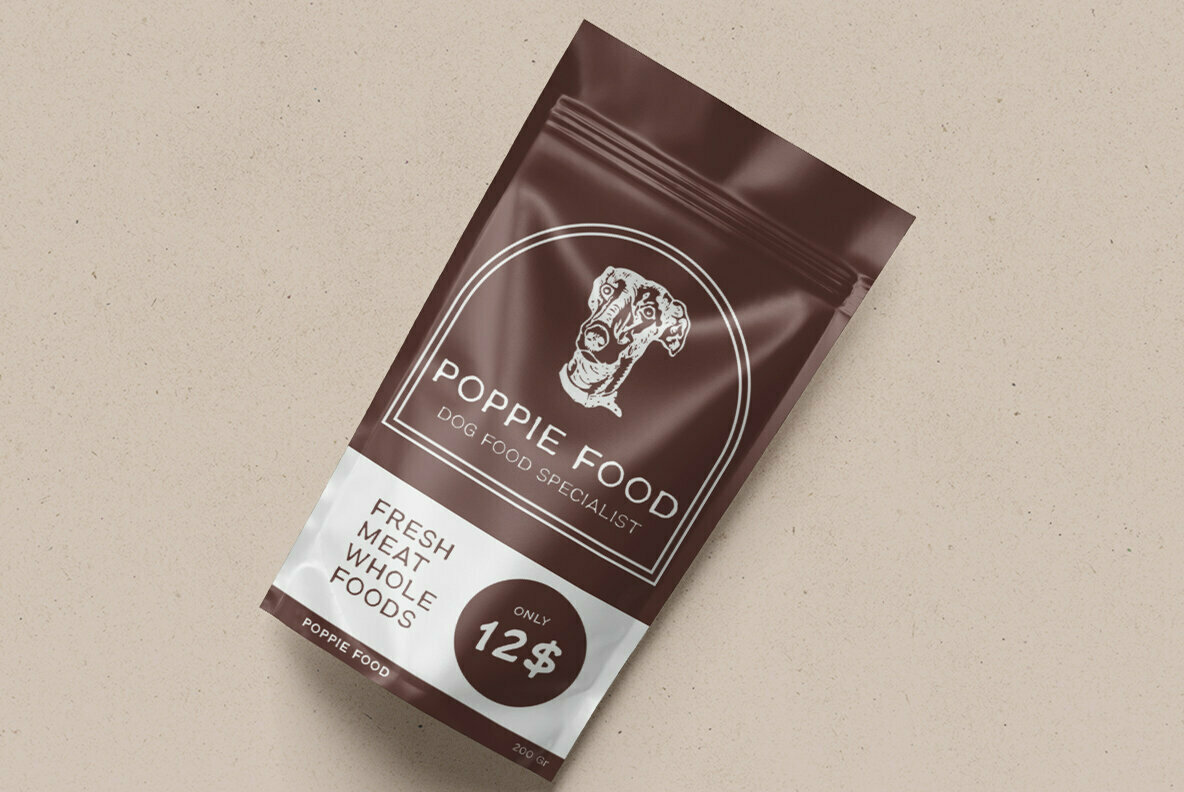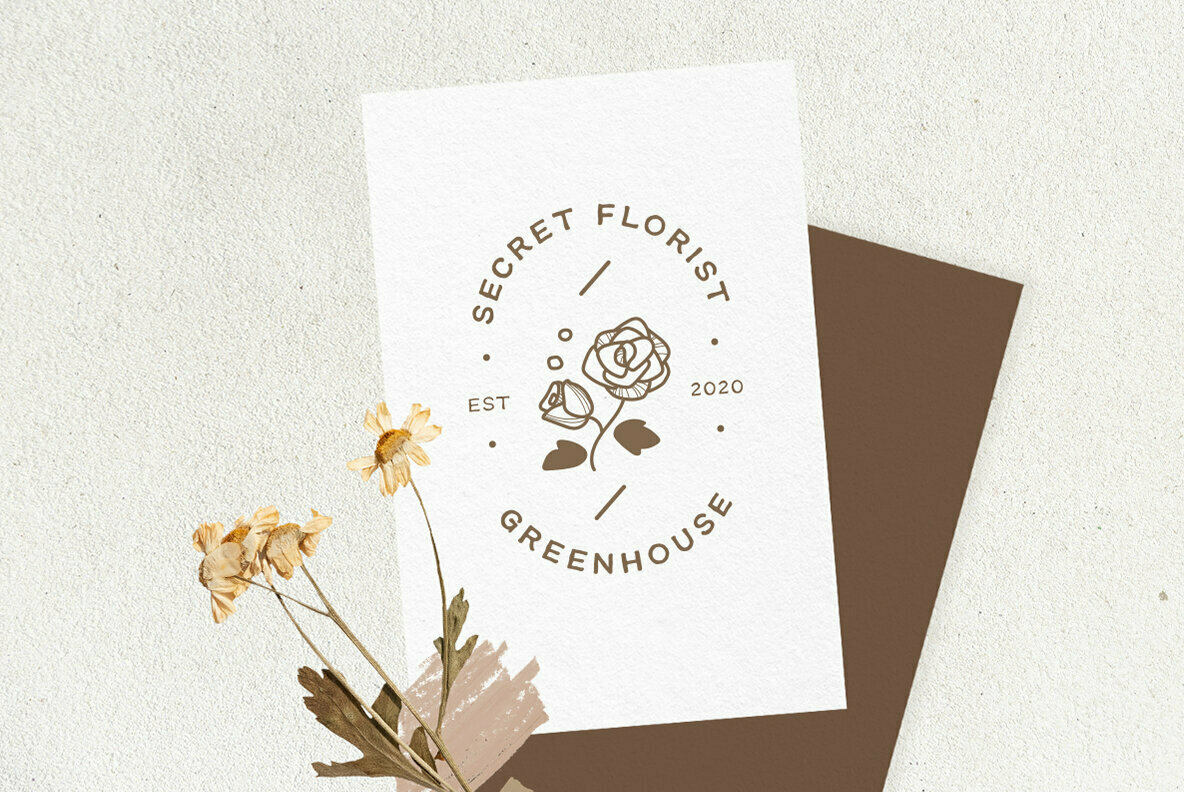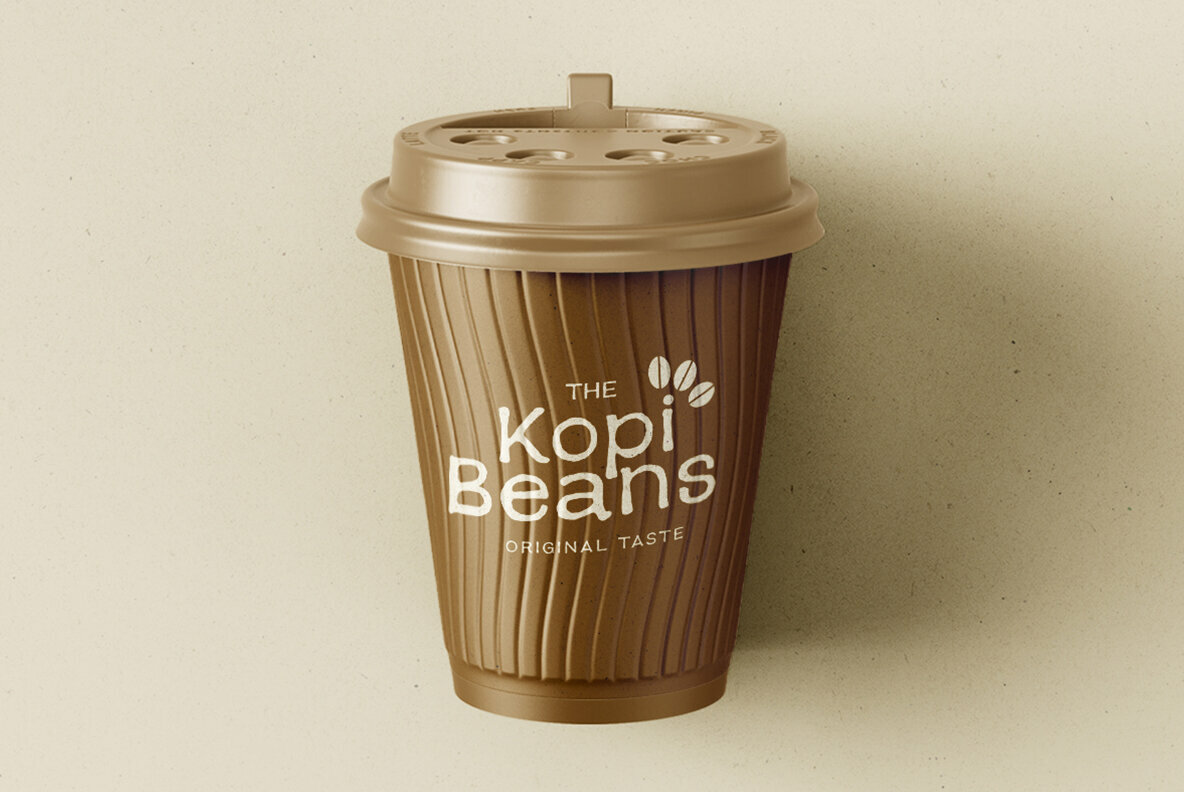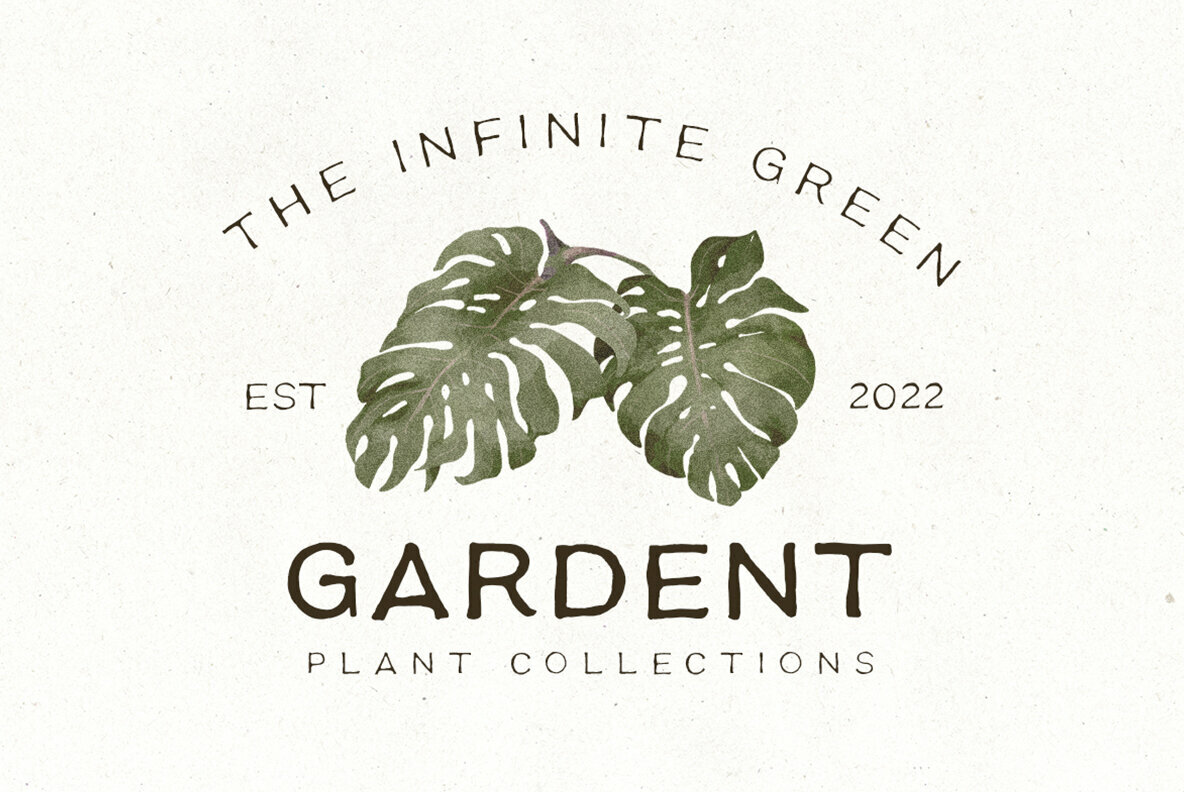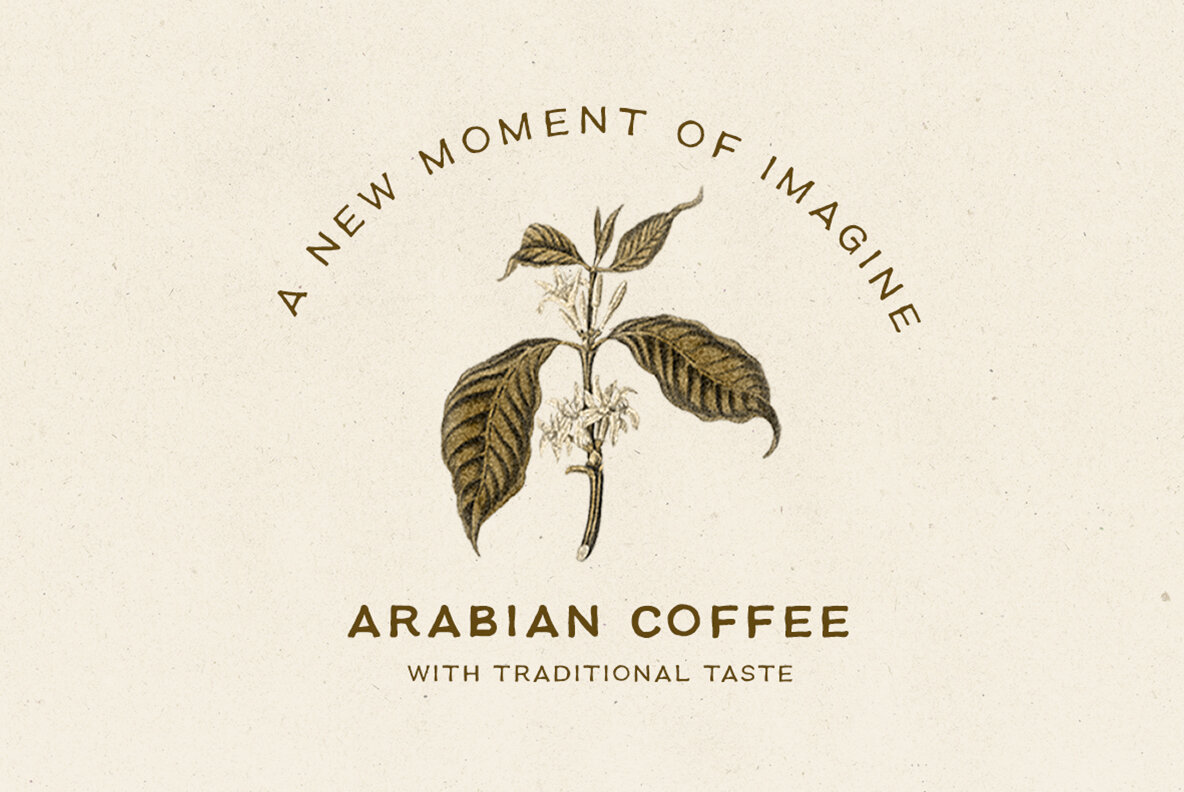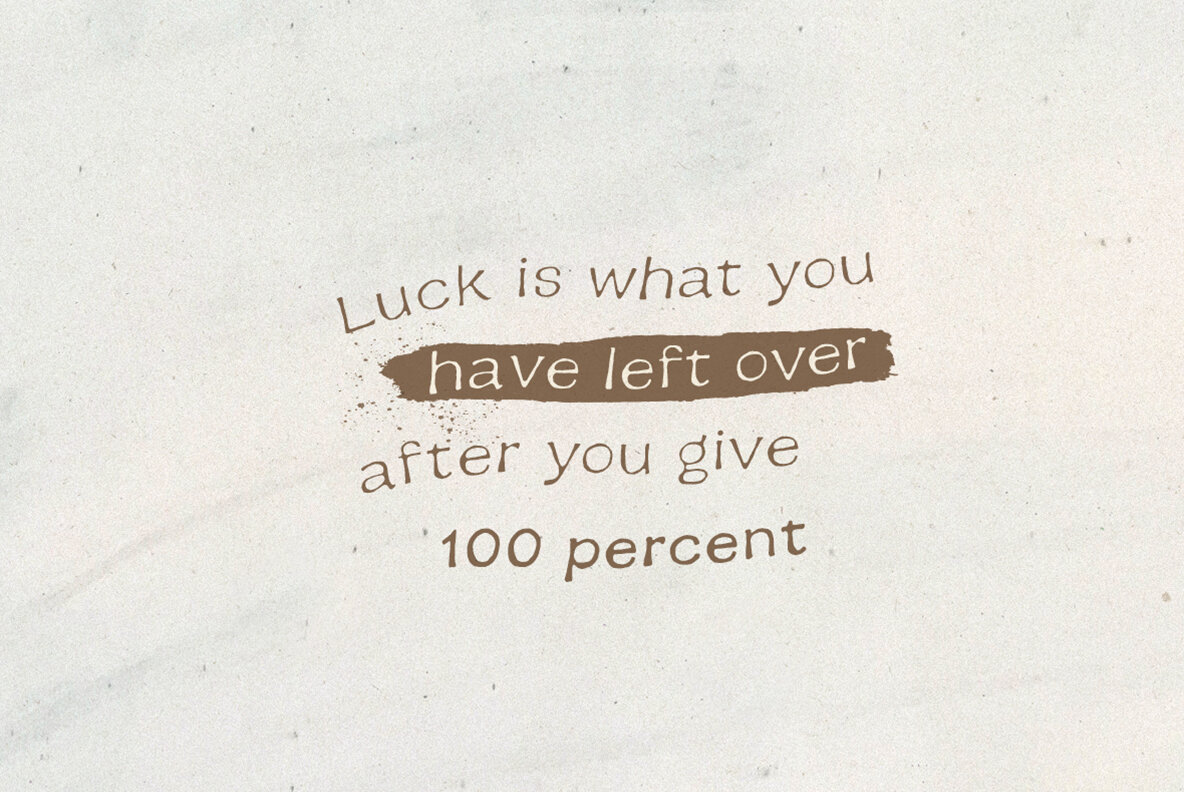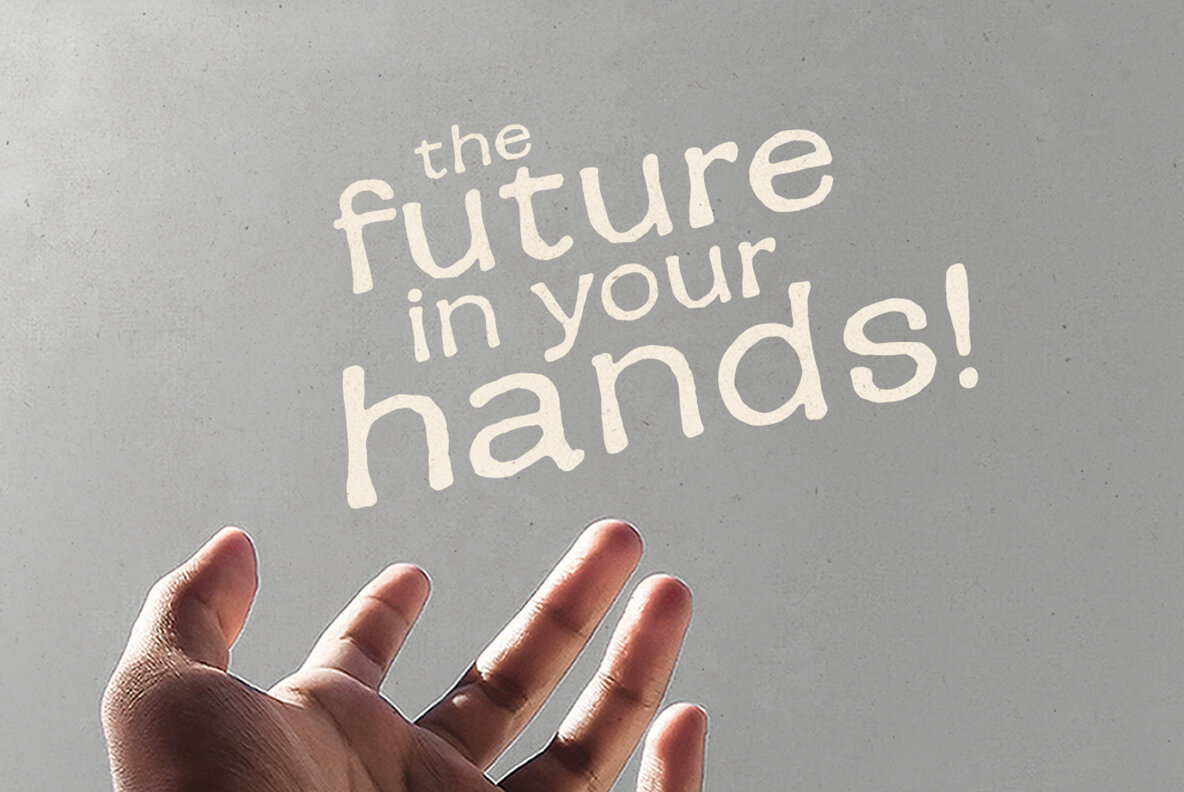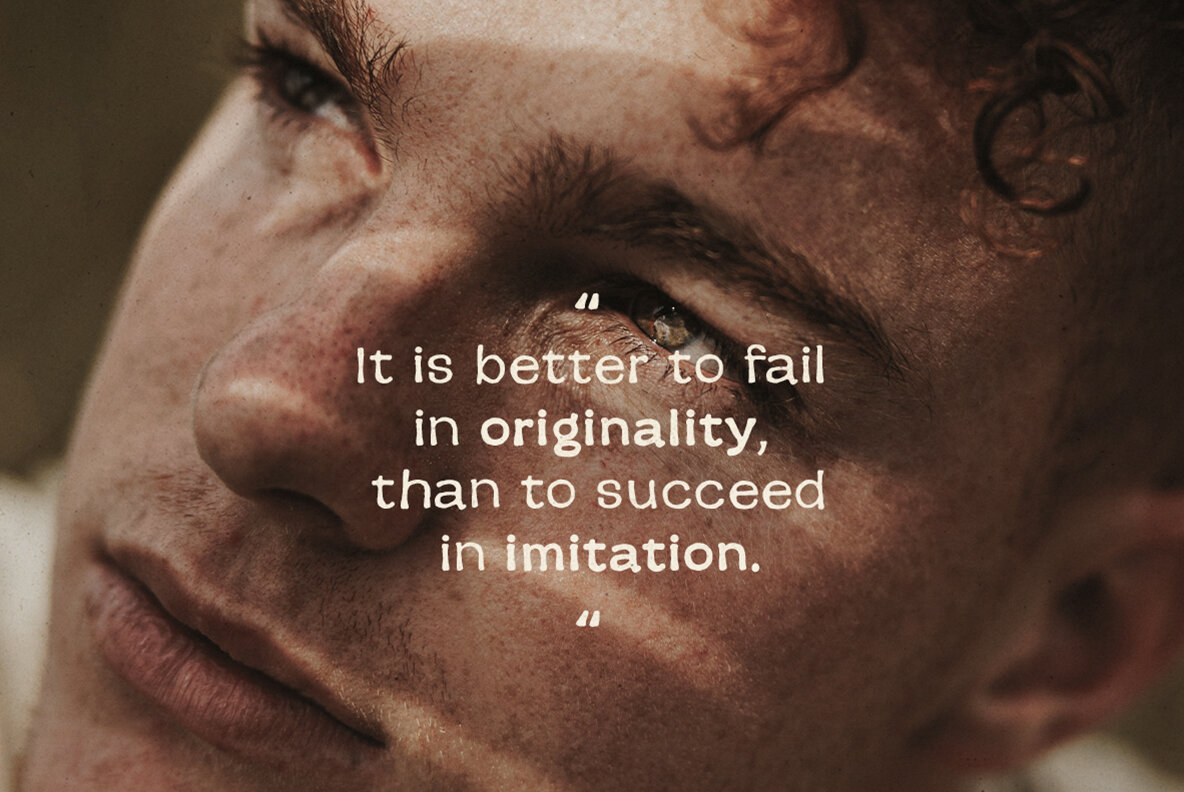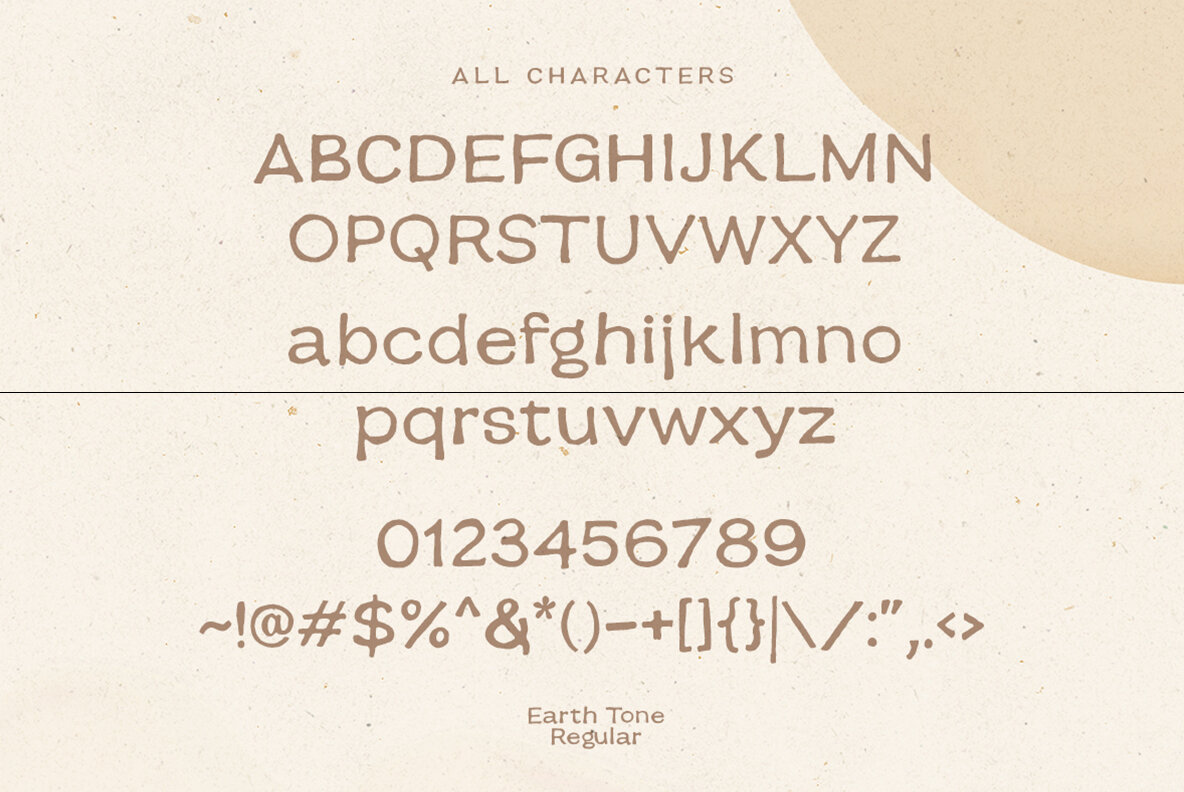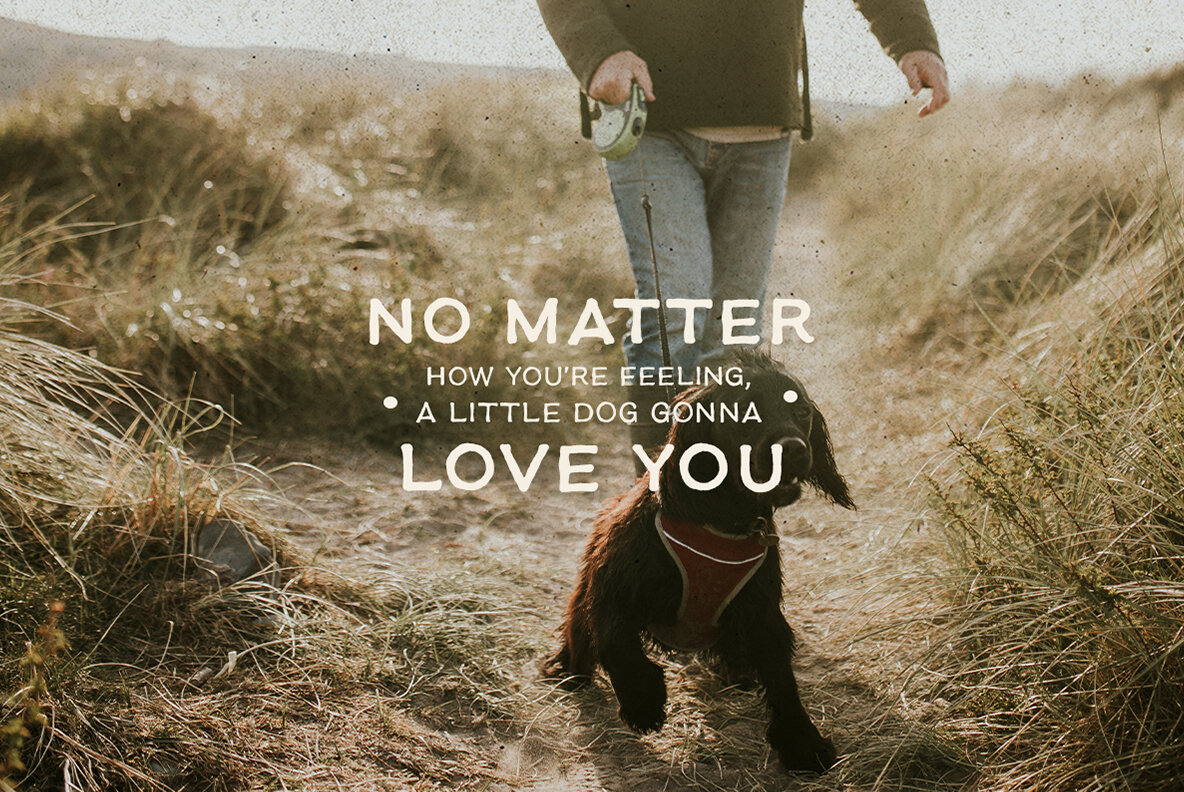
Earth Tone Font
Earth Tone Light
Earth Tone Regular
Earth Tone Bold
Earth Tone is an elegant, creative font family with natural and organic feel that contains three weights. This versatile typeface works well not just on logos but also as accent lettering throughout all of your designs giving them an organic feel while still remaining professional.